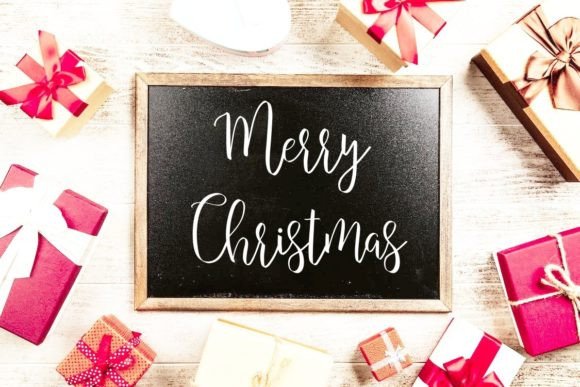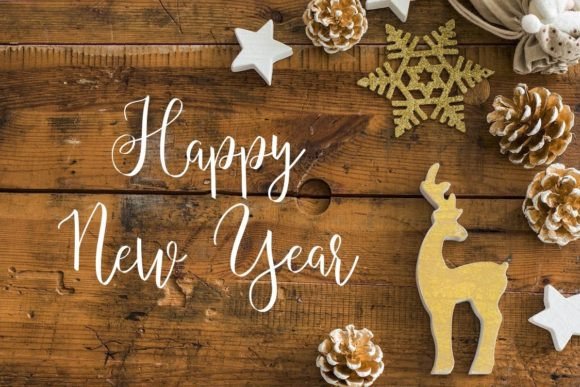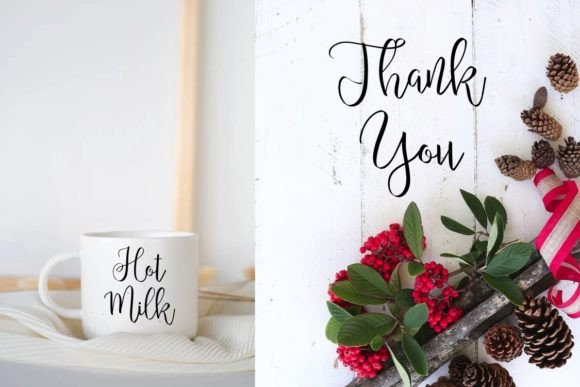
Introducing Farmhouse Christmas Font: A Sweet and Delicate Handwritten Delight
Are you a designer, crafter, or DIY enthusiast looking for a font that exudes romance and whimsy? Look no further than the Farmhouse Christmas font! This sweet and delicate handwritten font is perfect for creating wedding invitations, cards, and other designs that require a touch of elegance and sophistication.
A Dainty and Joyful Font for Your Design Needs
Farmhouse Christmas is a beautifully crafted font that is both dainty and joyful. Its delicate strokes and whimsical flair make it an ideal choice for a variety of design projects. Whether you’re creating wedding stationery, holiday cards, or simply want to add a personal touch to your digital creations, this font is sure to impress.
Key Features of Farmhouse Christmas Font
- Handwritten with love: Farmhouse Christmas is a carefully crafted handwritten font that mimics the look of elegant penmanship.
- Delicate and dainty: The font’s slender strokes and petite letters make it perfect for designs that require a touch of subtlety.
- Romantic and whimsical: Farmhouse Christmas has a playful, carefree feel that’s perfect for wedding invitations, anniversary cards, and other romantic designs.
- Easy to read: Despite its delicate nature, Farmhouse Christmas is surprisingly easy to read, making it a great choice for body text and longer designs.
Farmhouse Christmas font is a versatile design asset that can be used in a variety of creative projects. Here are a few ideas to get you started:
- Wedding invitations: Create beautiful, one-of-a-kind wedding invitations that set the tone for a romantic and memorable celebration.
- Holiday cards: Add a personal touch to your holiday cards and greetings with Farmhouse Christmas font.
- Digital art: Use Farmhouse Christmas font to add text and personality to your digital art, such as illustrations, watercolor designs, and more.
- Crafting projects: Add a touch of elegance to your crafting projects, such as handmade cards, gift tags, and scrapbooking pages.
Tips for Using Farmhouse Christmas Font
To get the most out of Farmhouse Christmas font, here are a few tips to keep in mind:
- Pair with complementary fonts: Combine Farmhouse Christmas font with other fonts that complement its delicate, handwritten style.
- Experiment with colors: Try pairing Farmhouse Christmas font with a range of colors to find the perfect combination for your design.
- Play with sizes: Experiment with different font sizes to create visual interest and hierarchy in your design.
Farmhouse Christmas font is a beautiful, delicate handwritten font that’s perfect for designers, crafters, and DIY enthusiasts. Its sweet and joyful personality makes it an ideal choice for wedding invitations, holiday cards, and other designs that require a touch of romance and whimsy. With its versatility, ease of use, and range of creative applications, Farmhouse Christmas font is sure to become a favorite in your design toolkit.